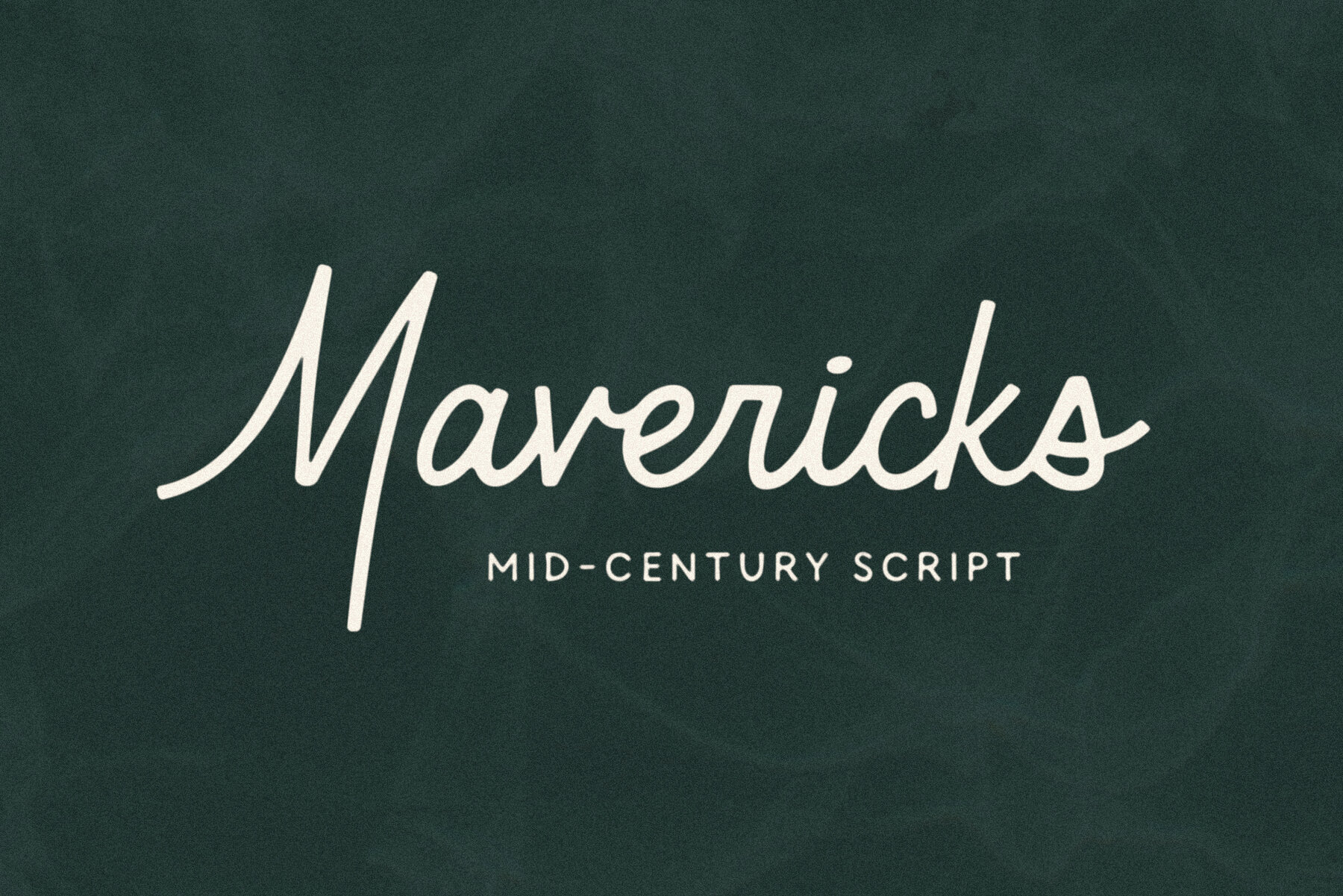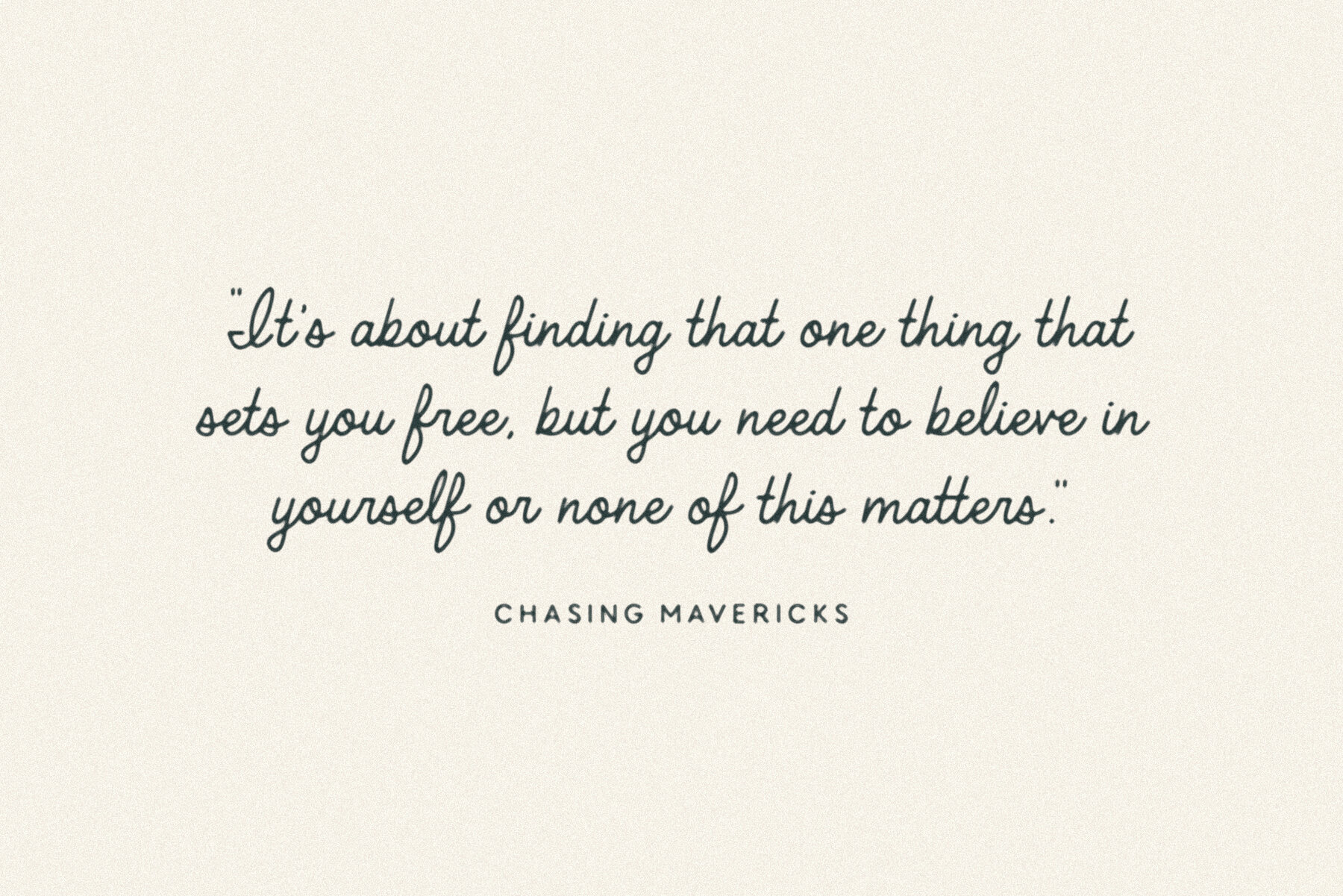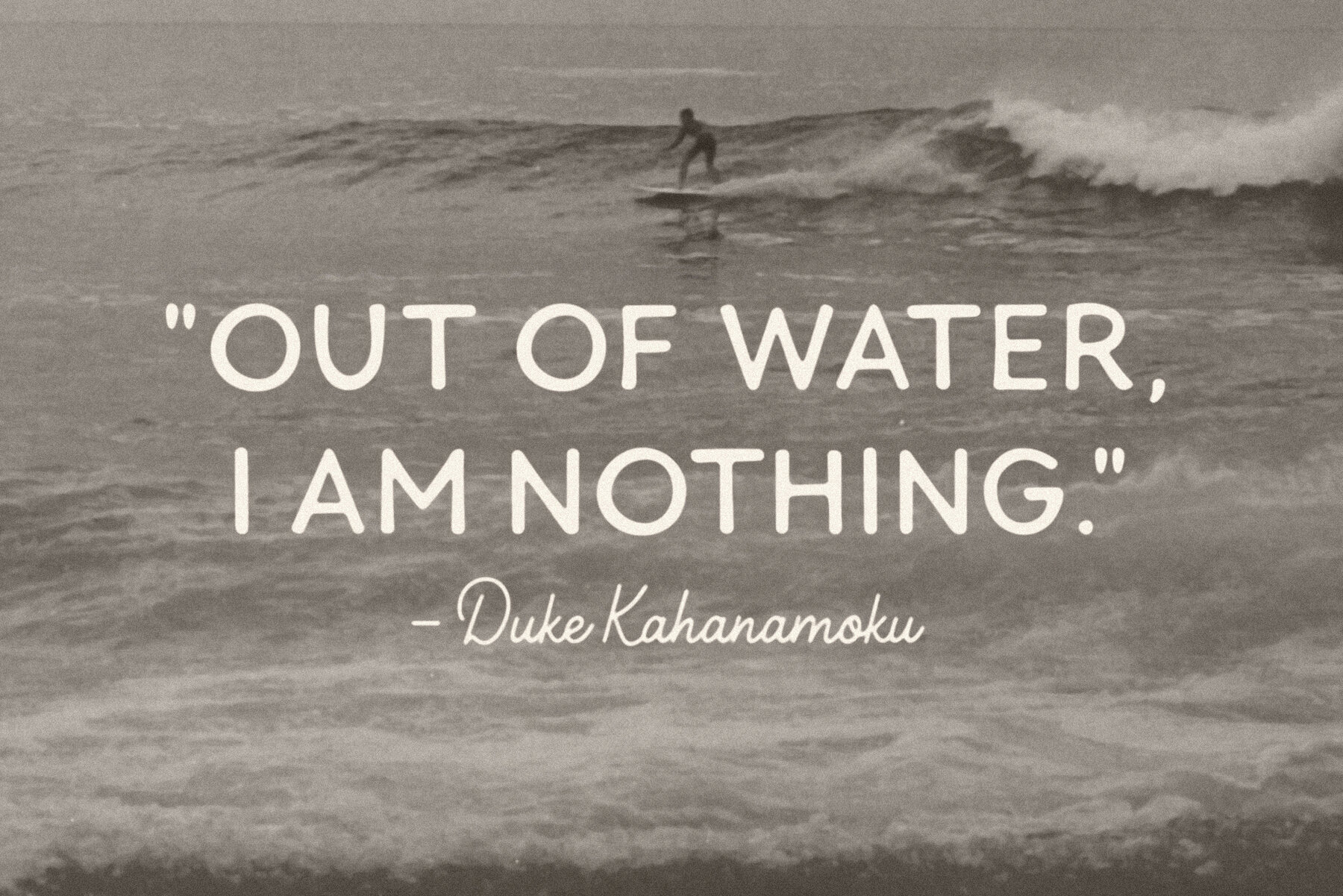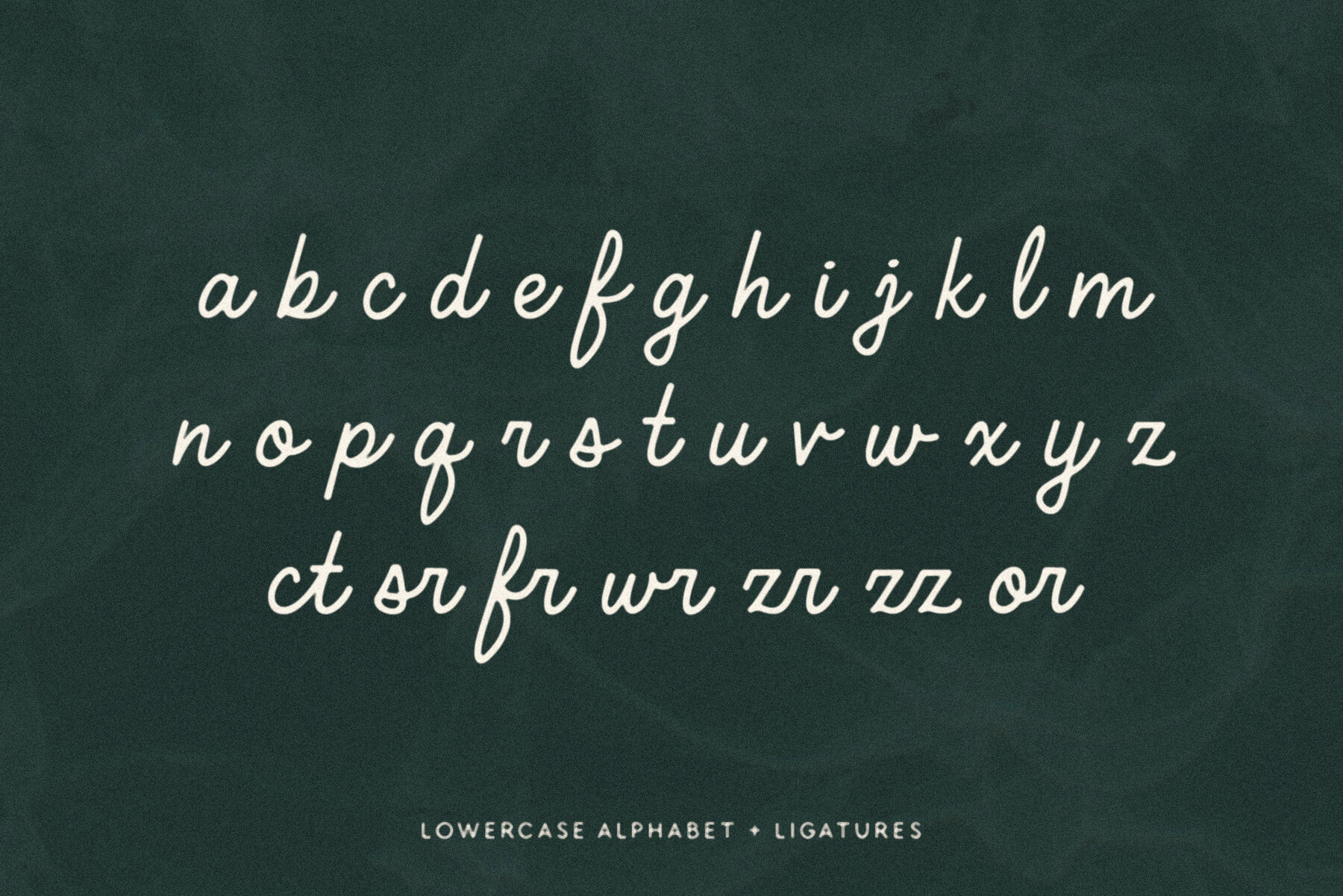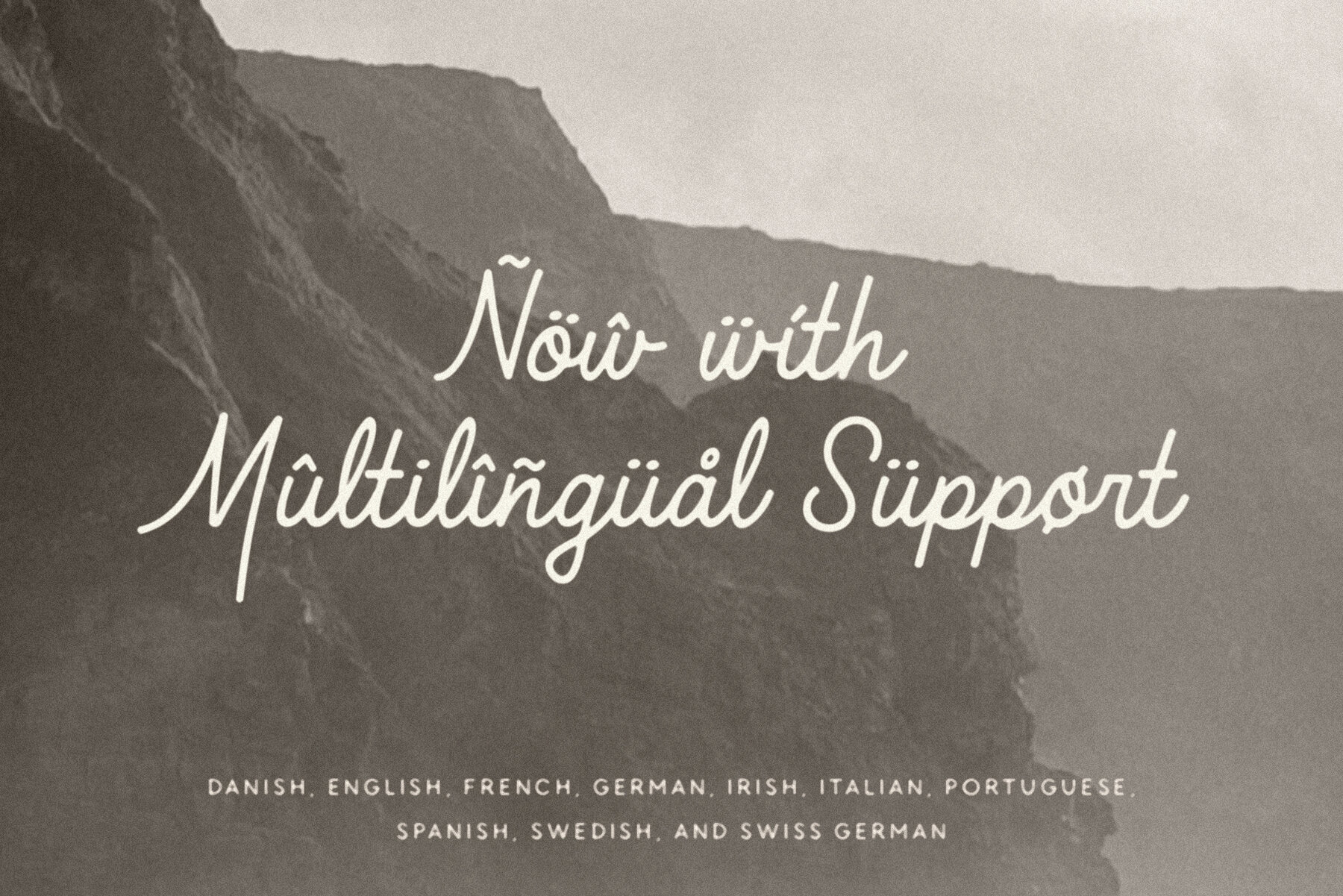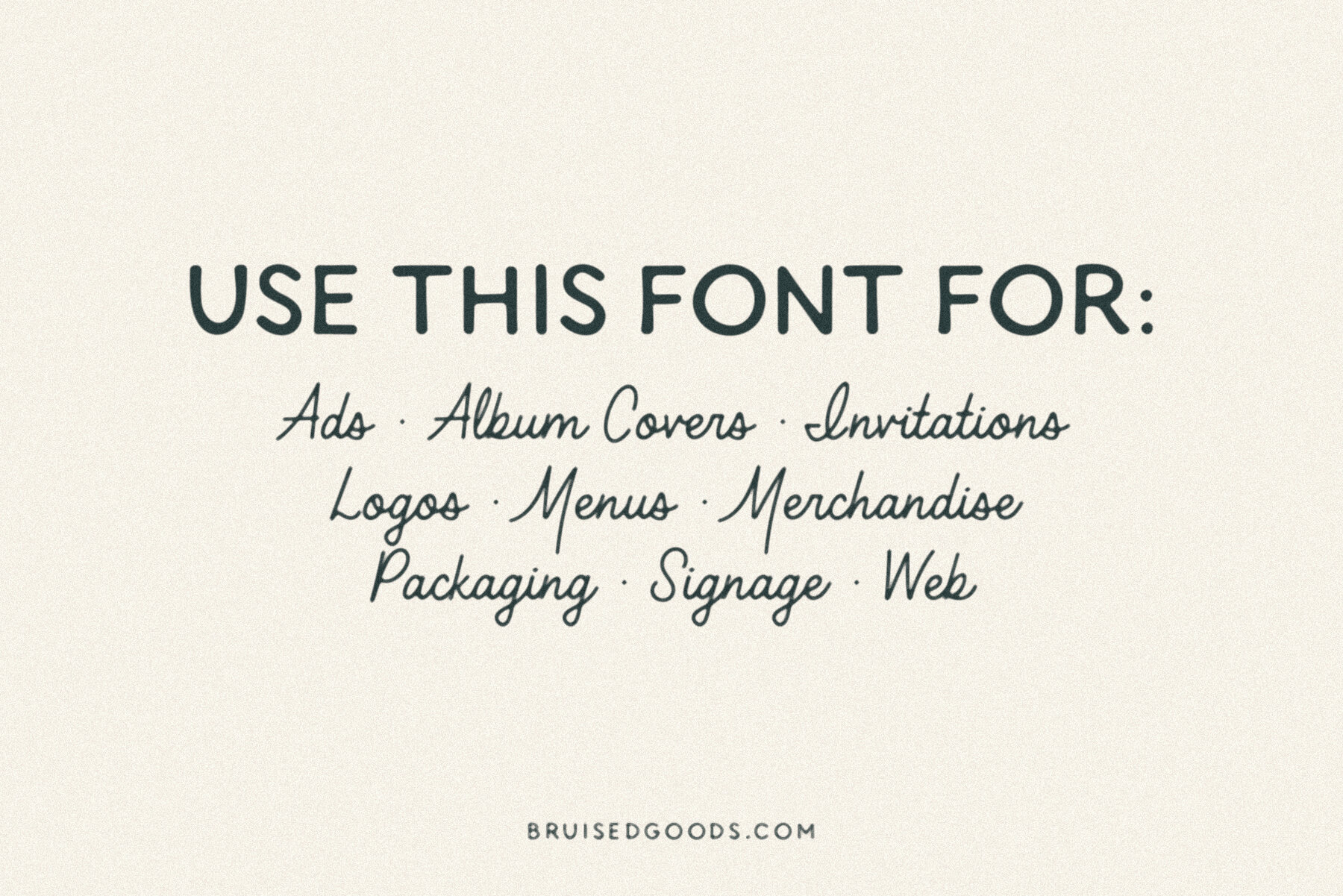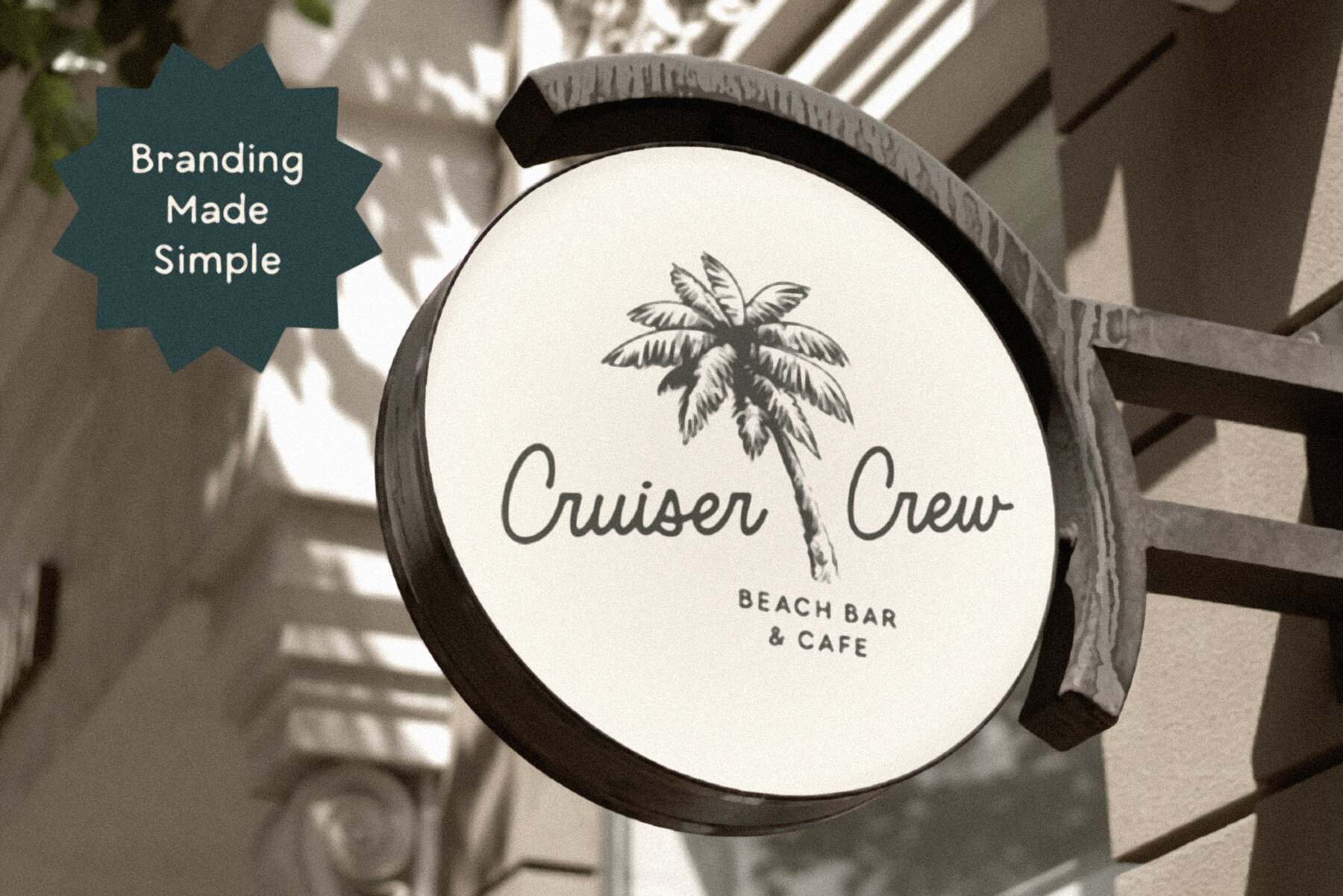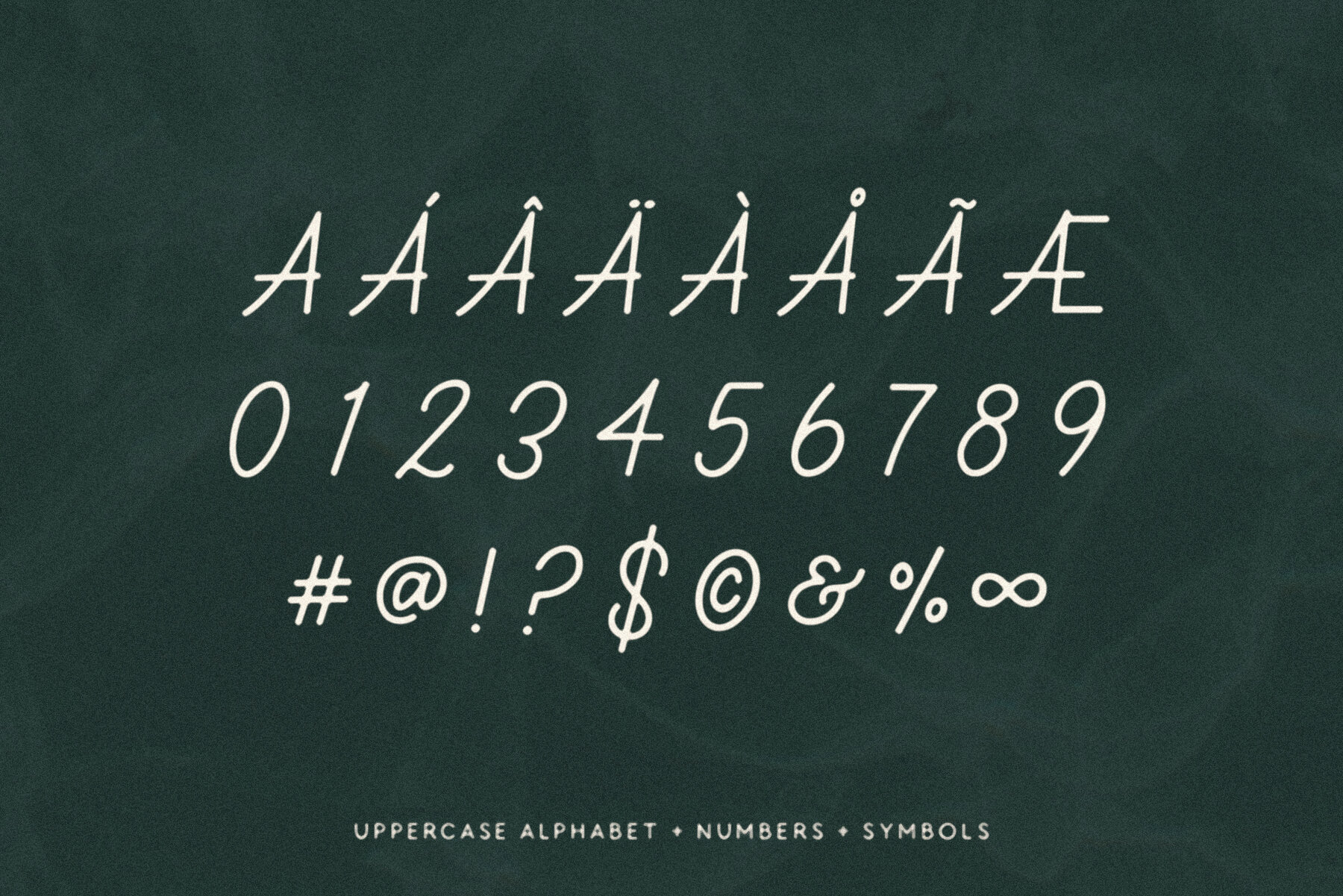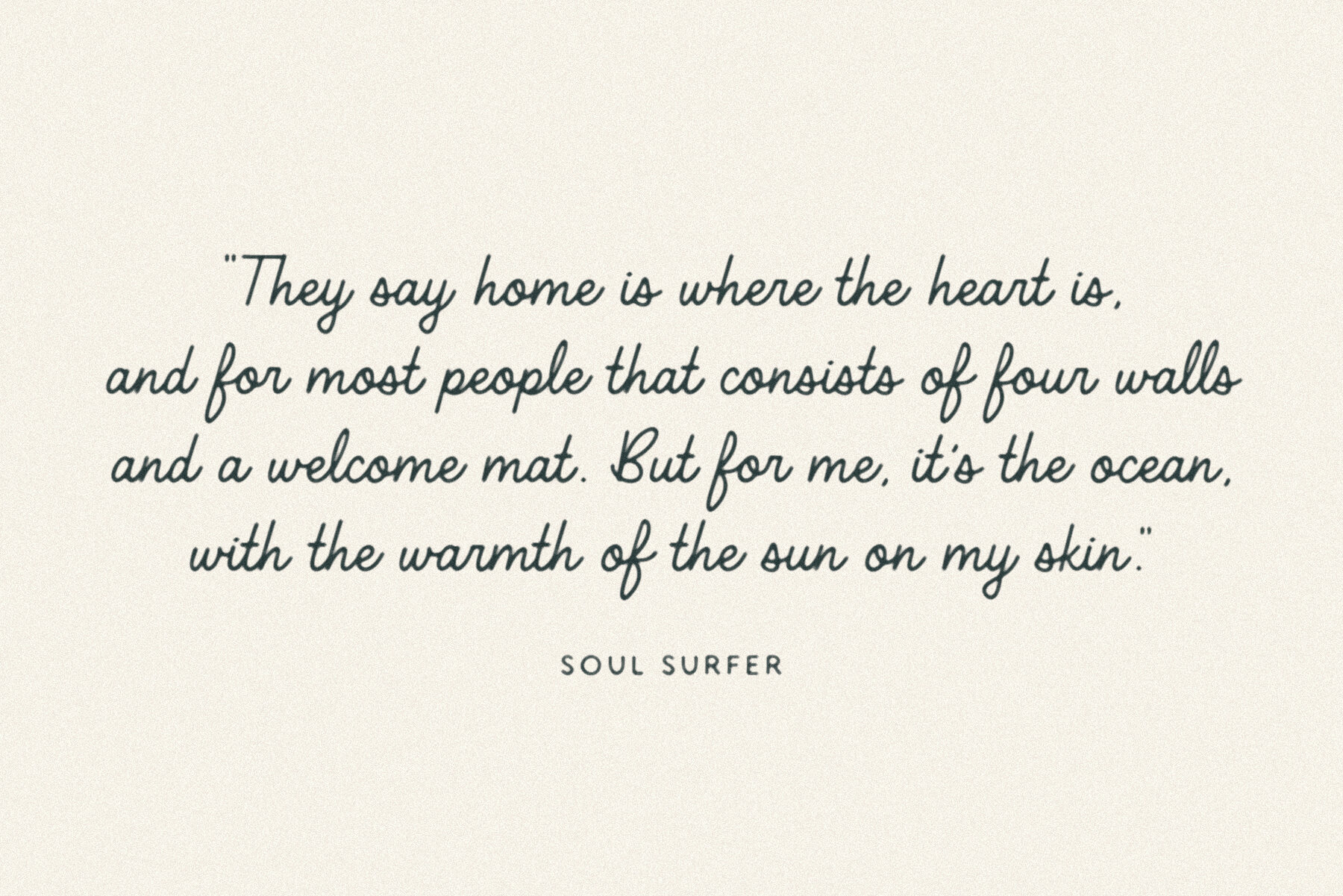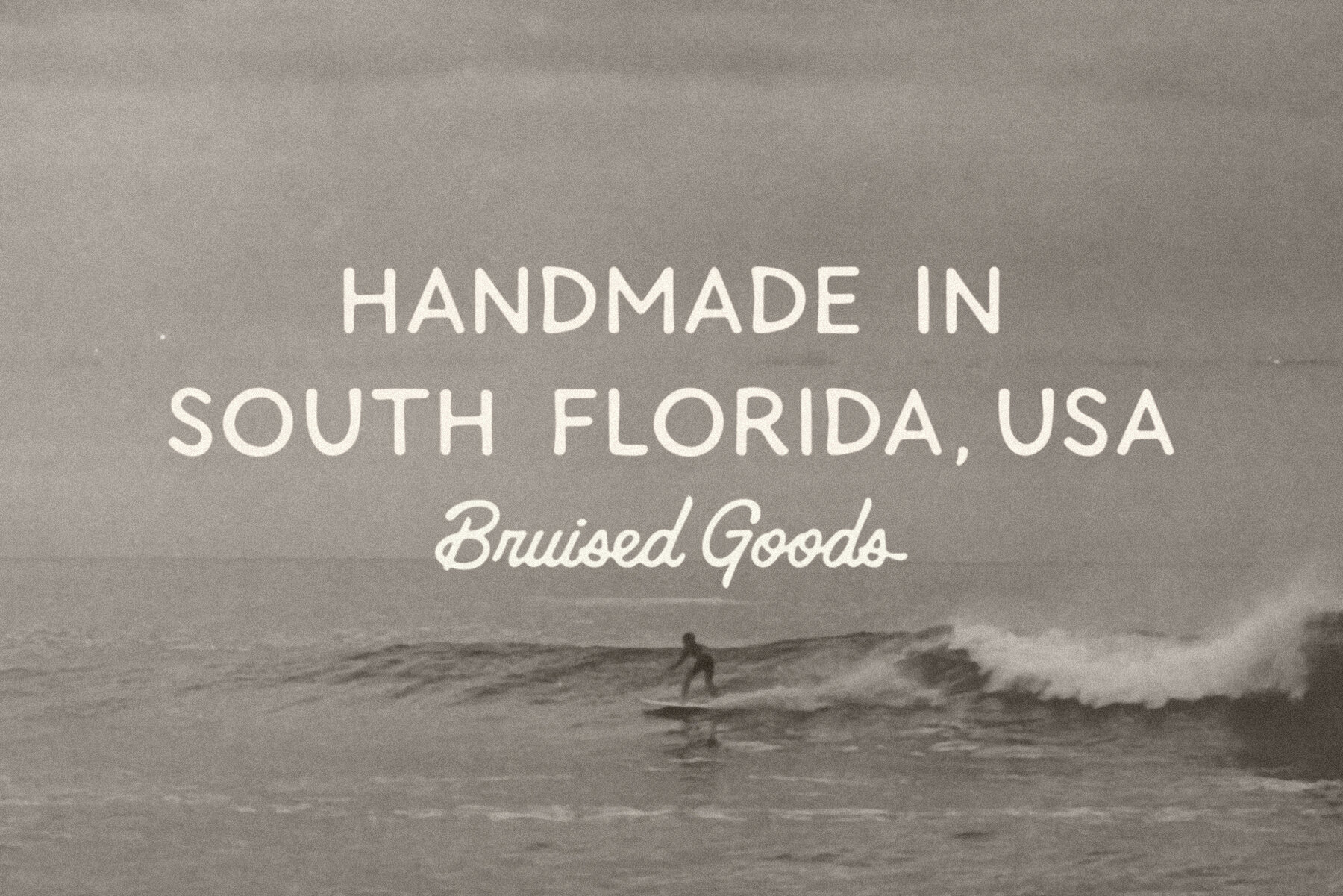
MAVERICKS – A smooth and sturdy handcrafted script font, inspired by California surf culture and all things midcentury modern. Designed by Lauren Kilbane (on the other coast!) in sunny South Florida, USA.
• 257 Glyphs Total: Uppercase, Lowercase, Numbers, Symbols, Punctuation, & Language Support.